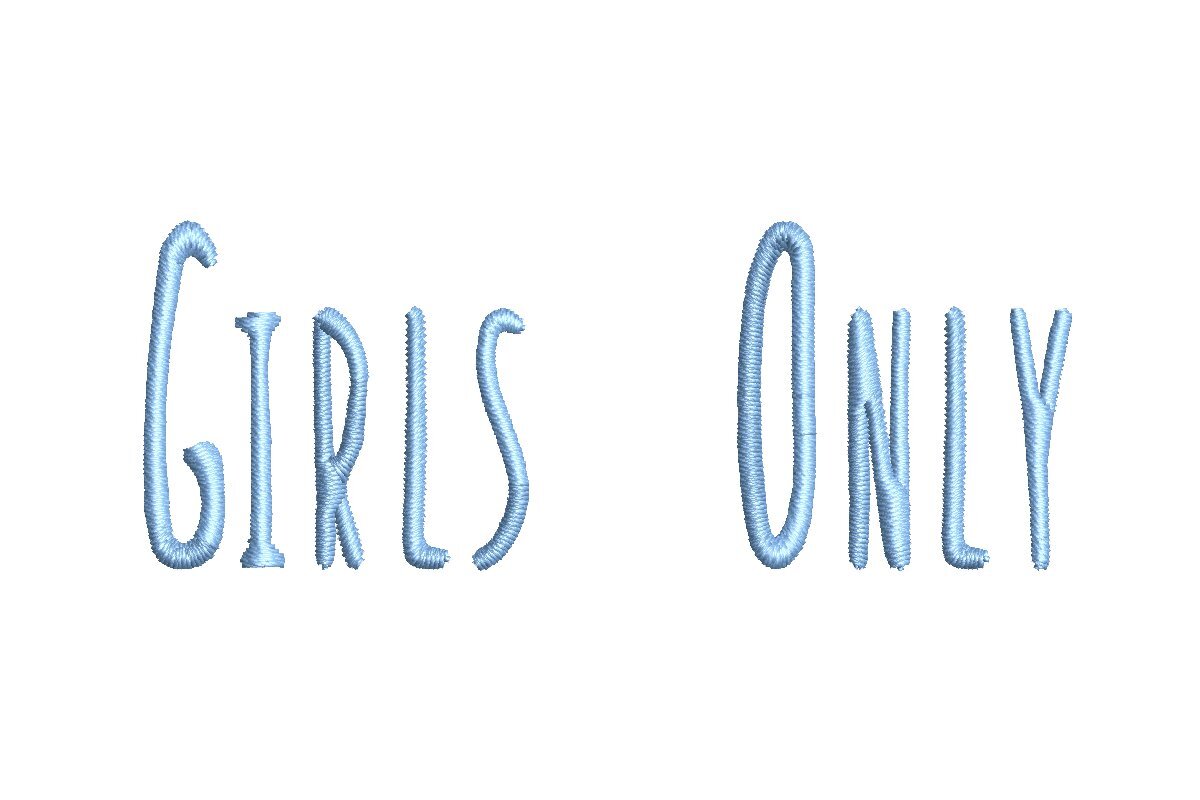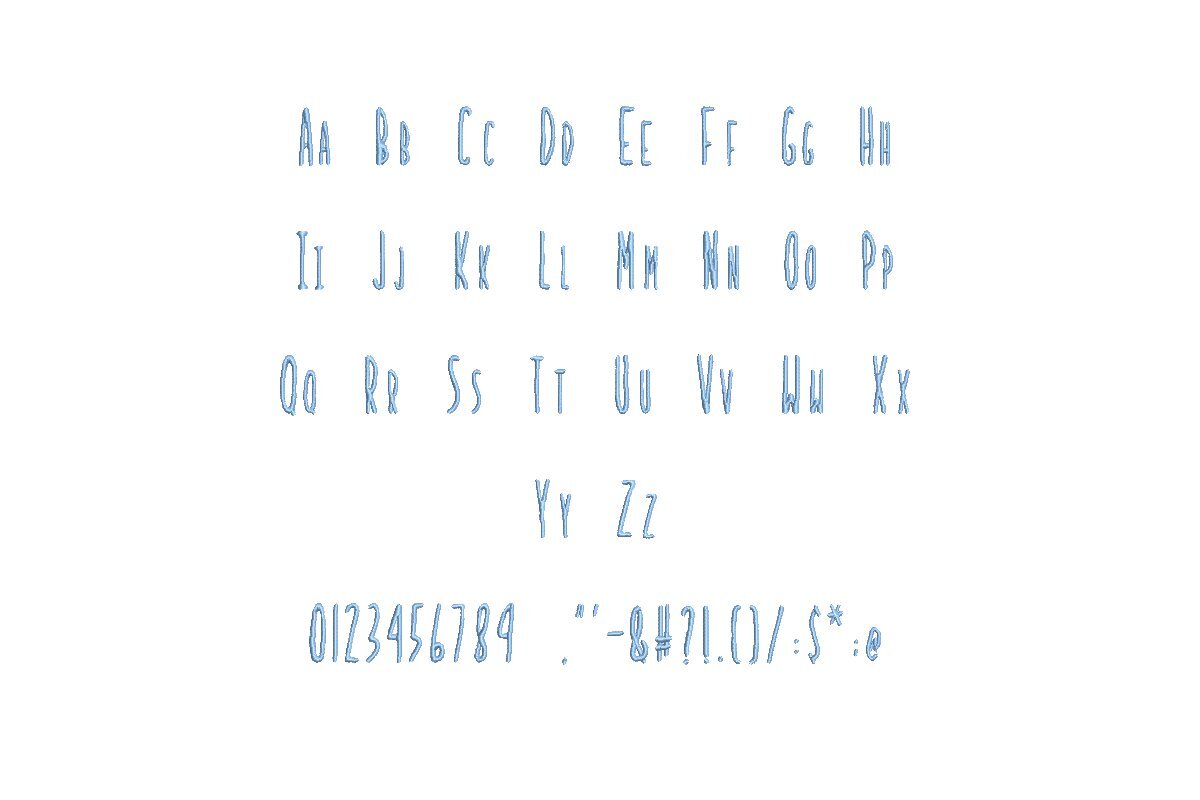
Introducing the Girls Only ESA font, your ultimate choice for delightful embroidery. Tailored for seamless compatibility with Wilcom Studio e4.5.6 and Hatch 3 versions and up, this font effortlessly integrates into your digitizing process. Girls Only ESA offers impeccable precision and versatility, perfect for monograms, playful text, and intricate designs. Elevate your embroidery projects with its exceptional quality and charming style. Craft professional and captivating designs effortlessly on various fabrics and items. Don't miss the chance to enhance your embroidery journey. Choose the Girls Only ESA font today and unlock a world of creativity and precision with every stitch, setting new standards for your embroidery excellence.